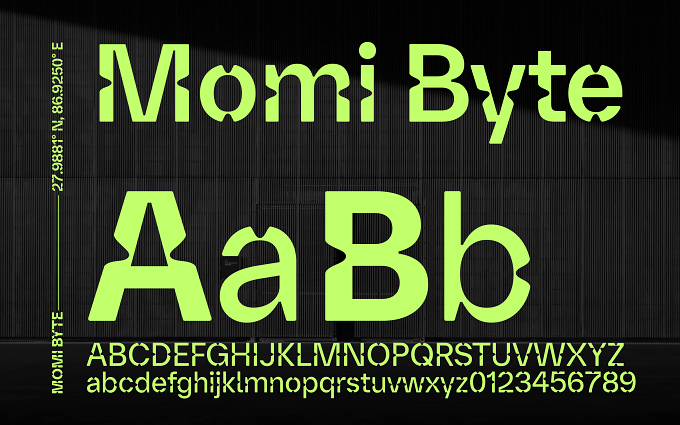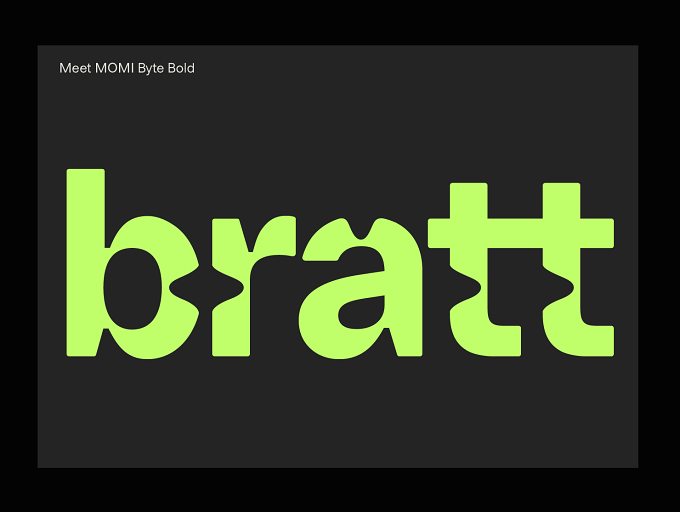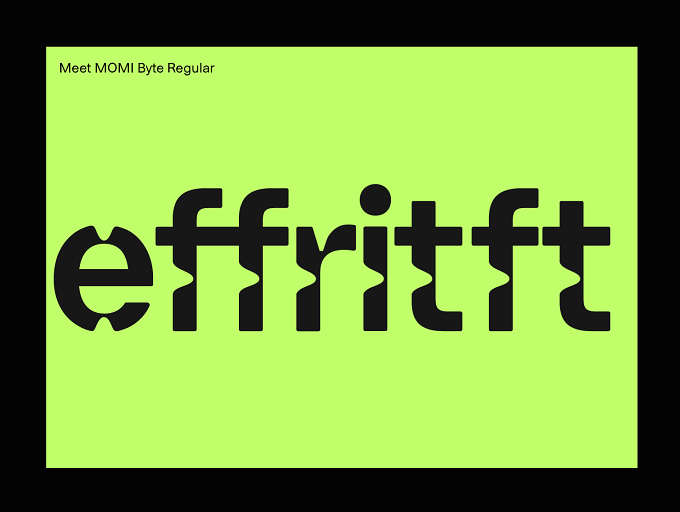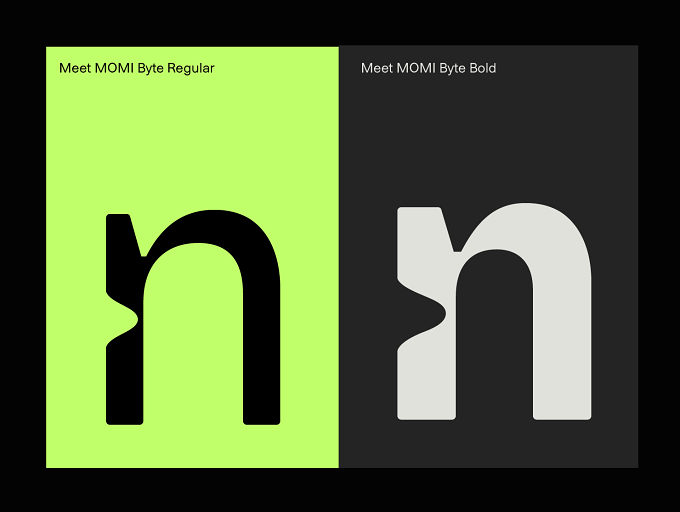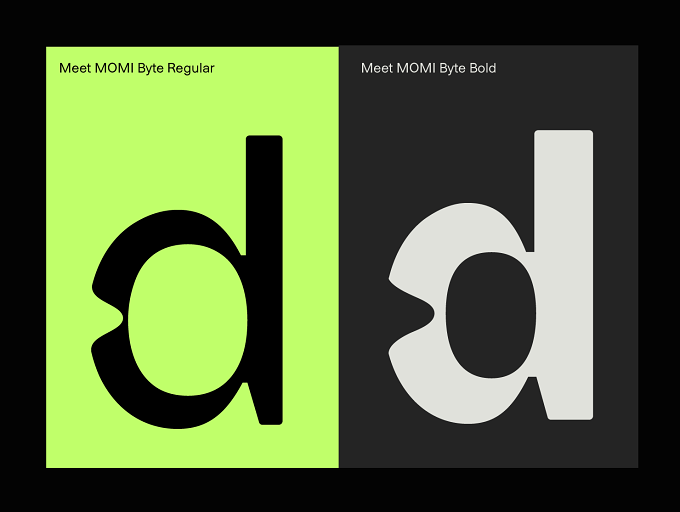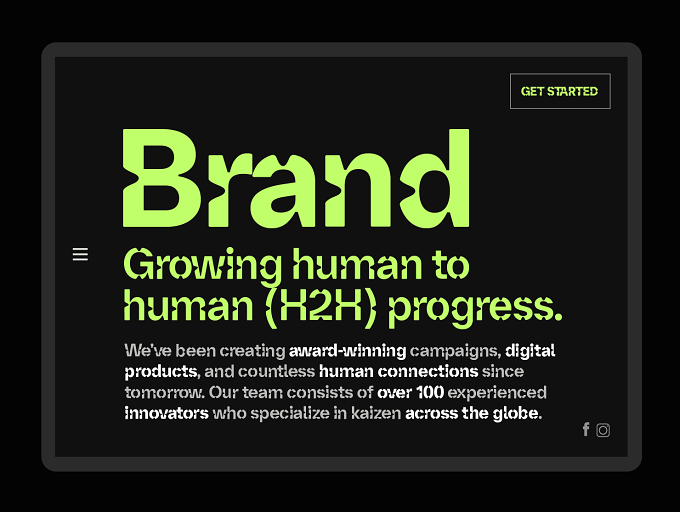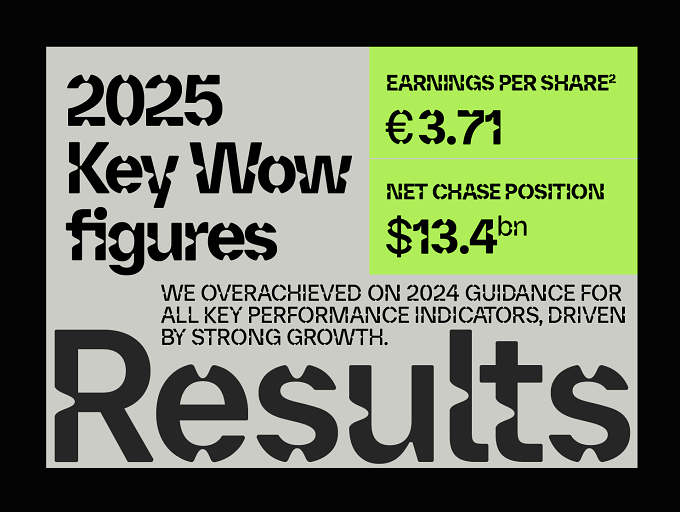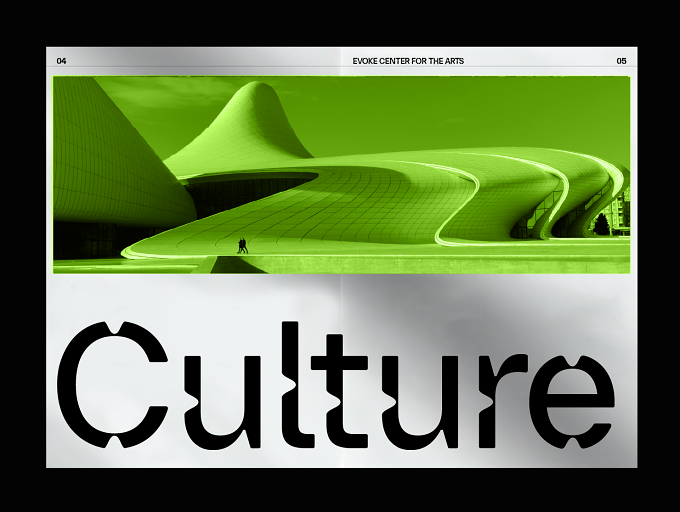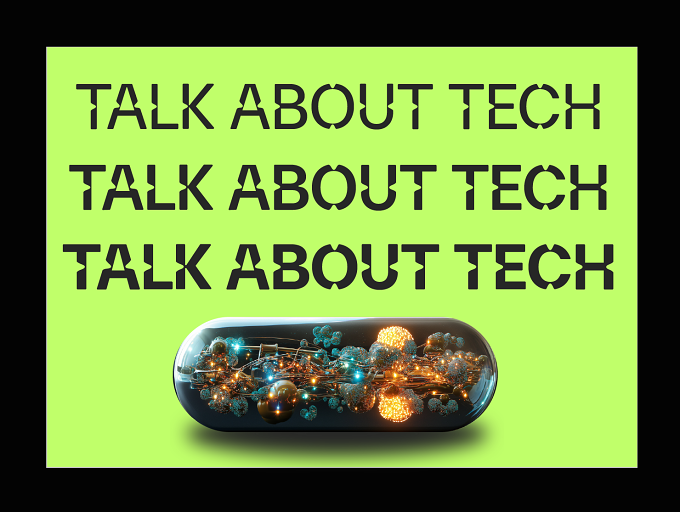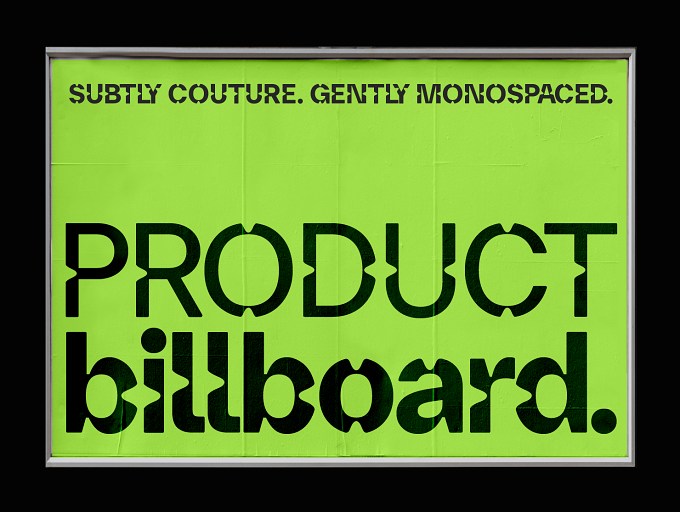
Momi Byte is a trendy organic tech font family. It's a unique typeface that seamlessly blends the precision of digital technology with the natural curves of organic design. The font features clean, geometric shapes balanced with smooth organic bytes, creating a harmony between the mechanical and the human. Perfect for branding, futuristic designs, research, technology, and innovation marketing collateral. Momi Byte is equally at home on cutting-edge websites or multi-channel marketing campaigns. With its versatile weight options and adaptable character set, Momi Byte invites innovation while staying grounded in a natural aesthetic. See higher fidelity visualizations and learn about licensing at Momentum 18 or MyFonts.